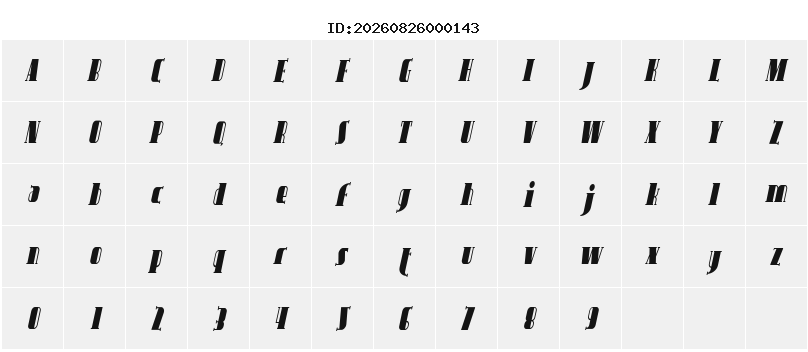
• Font Name: SF Avondale Cond
• Full Font Name: SF Avondale Cond Italic
• Designer: Derek Vogelpohl
• Manufacturer: ShyFoundry
SF Avondale Cond.ttf is a modern, elegant sans-serif font designed for ultimate readability and visual harmony. Perfect for branding, headlines, web design, and print materials.